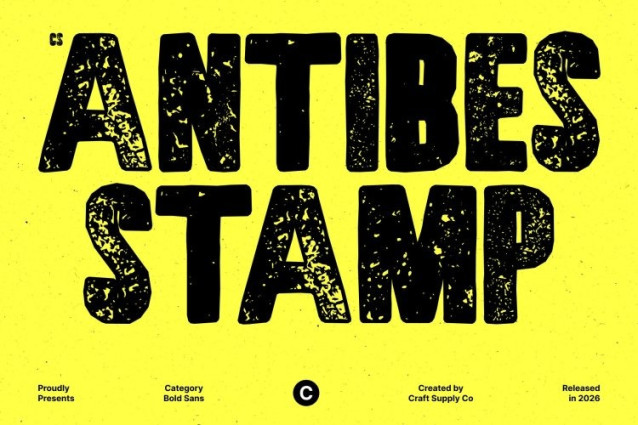
CS Antibes Stamp Font
CS Antibes Stamp Font This turns the sleek, modern sans serif into a tactile, stamp-inspired display font. Each letter carries subtle imperfections, inked textures, and slightly worn edges, giving it a handcrafted, vintage look without losing its bold and striking presence.
Dynamic Expression with Artistic Texture
The condensed, confident forms are enhanced with textured surfaces that evoke old printmaking and retro signage. These expressive details add personality and depth, transforming straightforward modern typography into a visually captivating, artistic statement.
Perfect Blend of Modernity and Vintage Flair
While maintaining the strong, condensed structure of this font, the stamp effect introduces a nostalgic, hand-pressed feel. Ideal for posters, branding, editorial headlines, or packaging, this version balances contemporary energy with artisanal charm, making designs both impactful and memorable.
Versatile for Bold, Eye-Catching Projects
From advertising and event promotion to editorial layouts and modern branding, this font delivers maximum visual impact. Its blend of modern boldness and artistic texture ensures every design stands out with personality, style, and vintage sophistication.